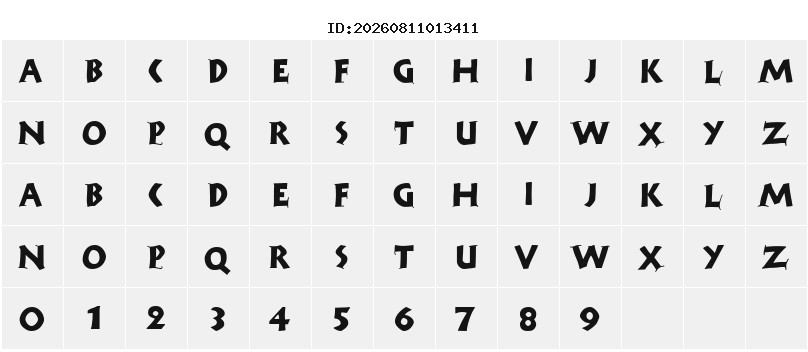
Rudolf Preview
• Font Name: Rudolf
• Full Font Name: Rudolf
About Rudolf.ttf
Rudolf.ttf is a modern, elegant sans-serif font designed for ultimate readability and visual harmony. Perfect for branding, headlines, web design, and print materials.